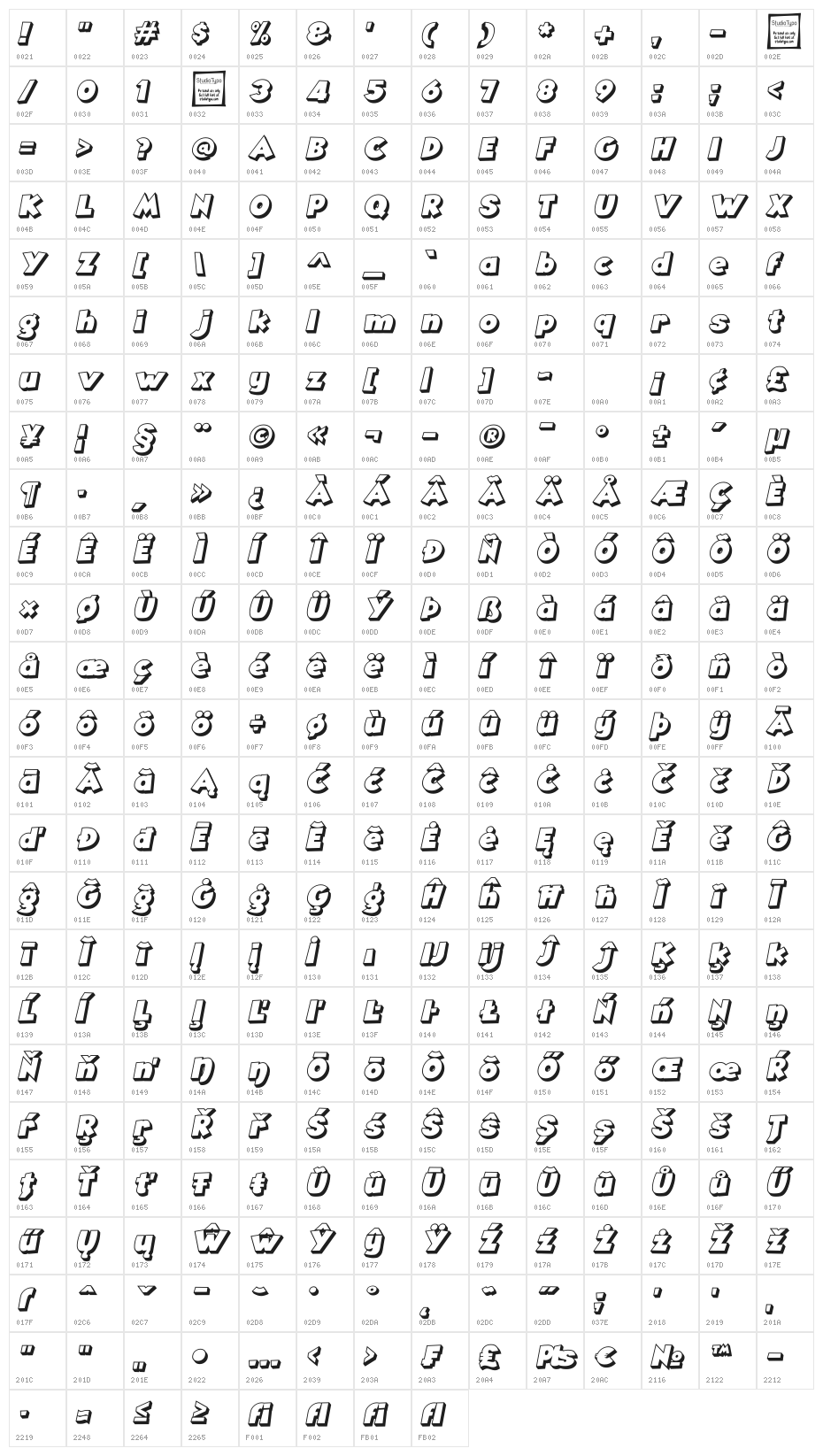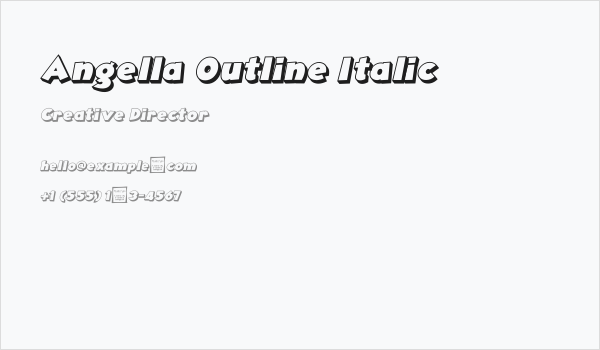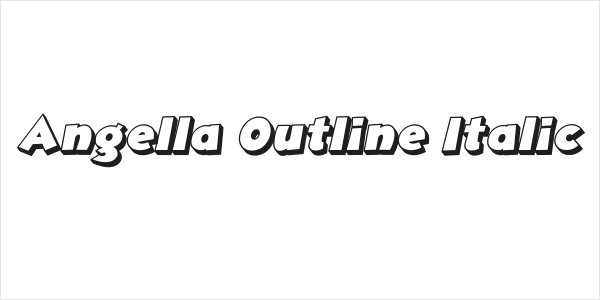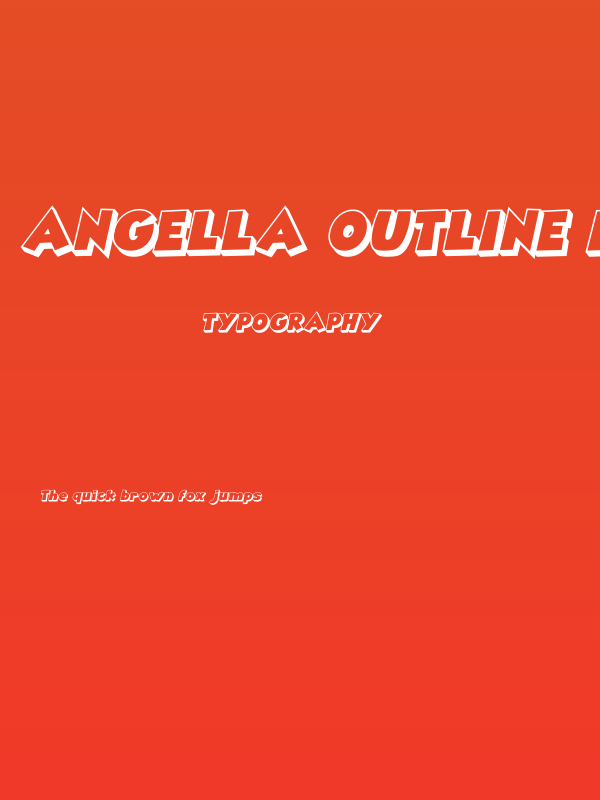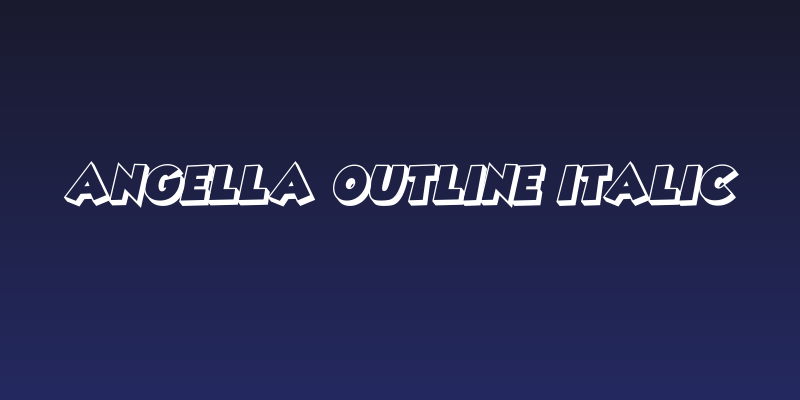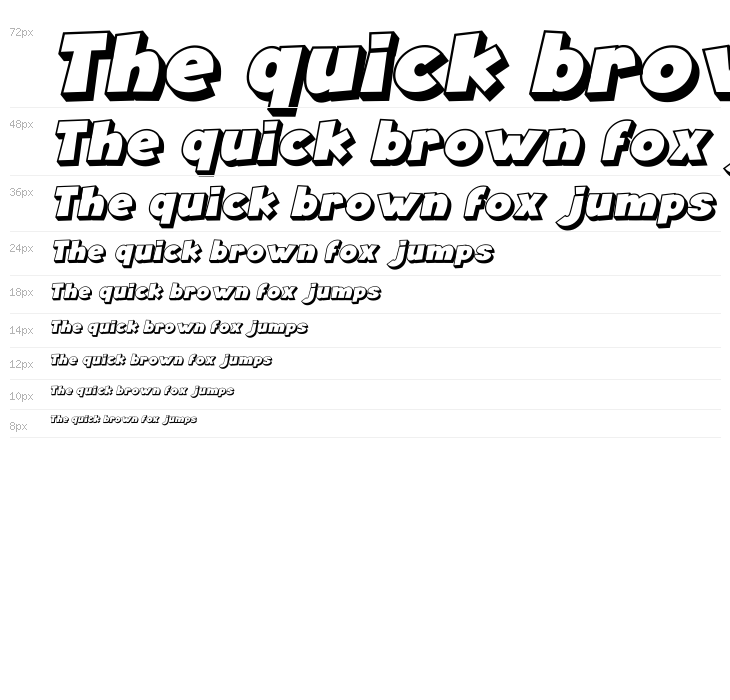
Angella Outline Italic Font
Angella Outline Italic Description
This font features a bold, playful outline style with a distinct italic slant, giving it a dynamic and energetic appearance. The characters are outlined, providing a three-dimensional effect that makes them stand out. The uppercase and lowercase letters maintain a consistent style, with rounded edges and a slightly condensed form. The numbers and special characters follow the same design principles, ensuring uniformity across all glyphs. This font's unique style is eye-catching and suitable for creative and informal applications.